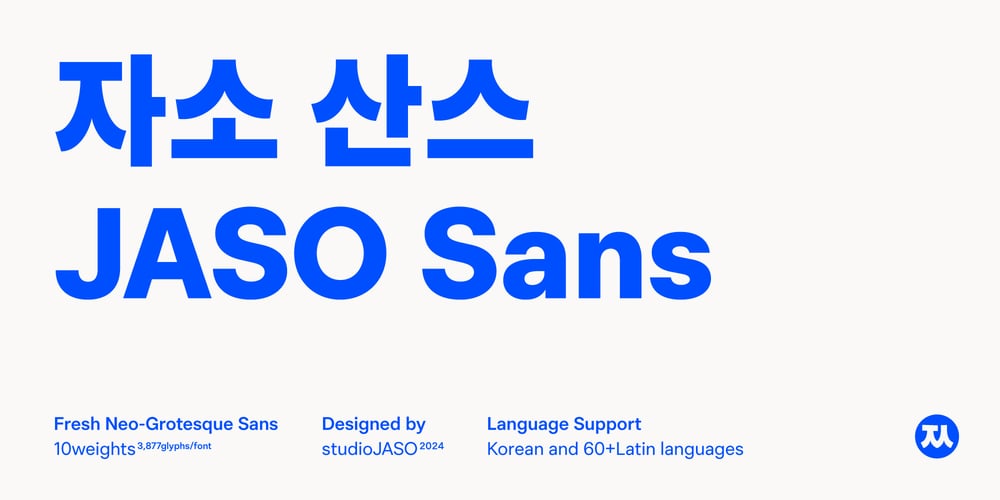
JASO Sans Font Family was designed by StudioJASO and published by StudioJASO. JASO Sans contains 10 styles and family package options. JASO Sans is a font that emphasizes subtle transitions while maintaining a sense of balance. At first glance, it appears modern and orderly, but its slightly upturned stroke endings and open letterforms add an energetic and cheerful feel.Additionally, JASO Sans is a superfamily font designed to work well for both body text and headings. In weights lighter than SemiBold, it features a more readable structure ideal for longer passages, ensuring a smooth, comfortable reading experience. In contrast, from Bold onwards, the font adopts a more squared and display-oriented style, creating a striking visual impact in headlines.